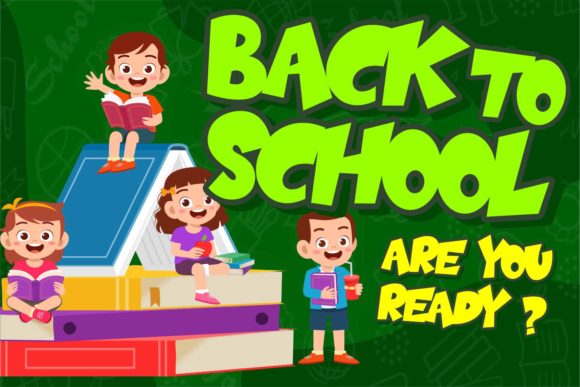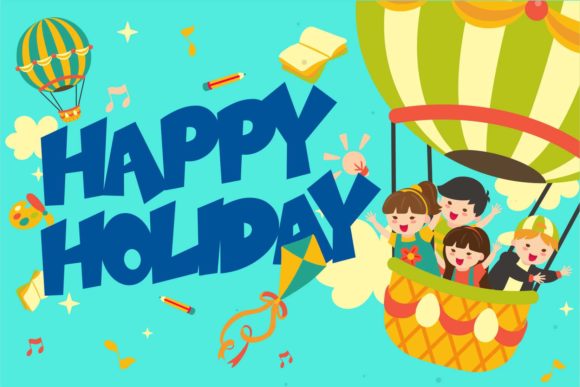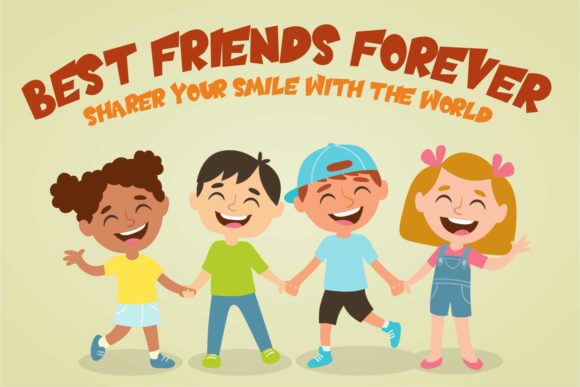
Introduction to Lalapis Font
Do you remember the excitement of rummaging through your crayon box as a child, waiting to unleash your creativity on a blank piece of paper? The thrill of watching your imagination come to life with each stroke of color and line? That same sense of wonder can now be captured in your digital designs with the enchanting Lalapis Font.
As a valuable design resource, Lalapis Font offers a playful and modern twist on traditional typography, making it the perfect addition to any creative project. Whether you’re working on a kids’ project, a school assignment, or a personal design endeavor, this joyful display font is sure to bring a smile to your face and a touch of magic to your design.
Lalapis Font
- Unique, hand-drawn style with a transparent background, allowing for easy layering and customization
- Comes in a single weight, making it easy to use in a variety of design contexts
- Great for use in digital and print projects, including logos, posters, and book covers
Honest Review: Lalapis Font
Lalapis Font is a popular design resource that I’ve been using for my creative projects. I was initially drawn to its high quality and unique aesthetic, which makes it perfect for various design applications.
What works well: ✨ The font is highly customizable, allowing designers to adjust the size, color, and even add effects to the text. It also supports a transparent background, making it easy to integrate into any design. The font is also free to download, which is a huge plus for designers on a budget.
What doesn’t work well: ⚠️ While the font is high quality, it can be quite large in file size, which may take up valuable storage space. Additionally, the font may not be suitable for all design projects, as it has a distinctive style that may not appeal to all audiences.
- Unique and distinctive aesthetic
Overall, I’m impressed with Lalapis Font and would highly recommend it to designers looking for a high-quality, free design resource. With its unique aesthetic and customization options, it’s perfect for a wide range of creative projects.
Lalapis Font
Some tips for getting the most out of Lalapis Font include using it for text overlays on images with a transparent background, experimenting with different font sizes and styles, and combining it with other design elements for a unique look. Common use cases for Lalapis Font include logos, brochures, presentations, and social media graphics.